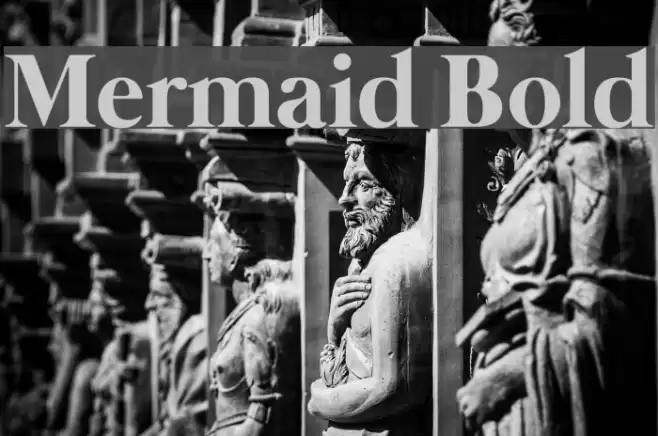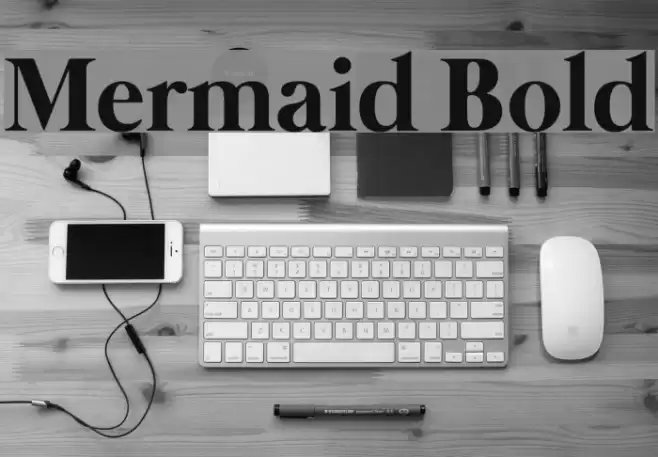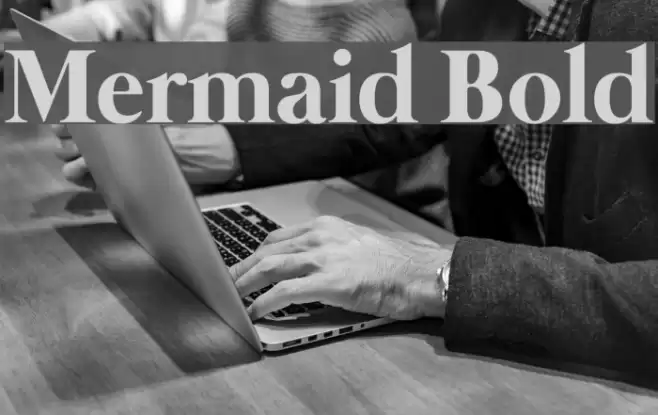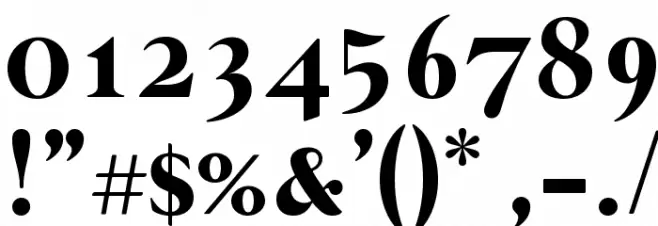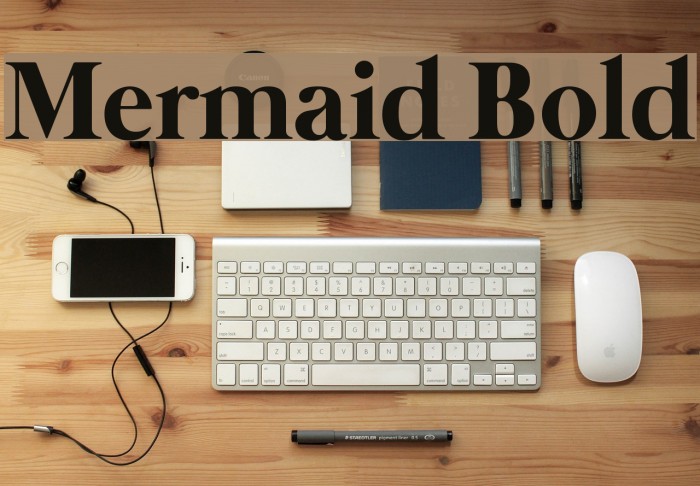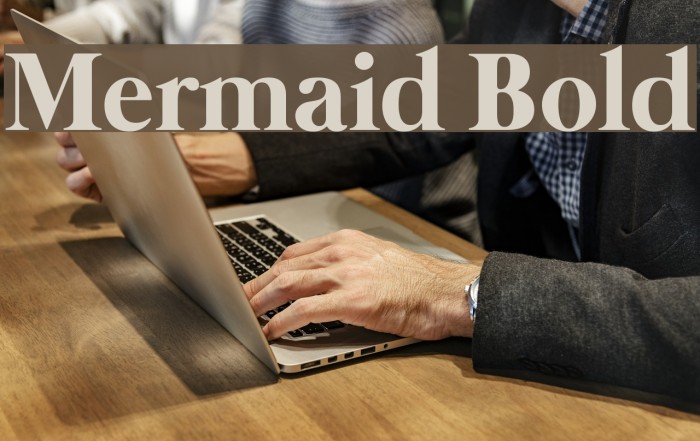
Mermaid Bold Font
Mermaid Bold Description
This font features a bold and elegant serif style, characterized by its strong vertical lines and subtle curves. The serifs are pronounced, giving the typeface a classic and sophisticated appearance. The uppercase letters are slightly taller than average, adding to the font's commanding presence. The lowercase letters maintain a consistent weight, ensuring readability while preserving the font's bold nature. The numerals are well-proportioned, aligning seamlessly with the overall design. Special characters are distinct and maintain the font's elegant style, making it suitable for various applications.
A bold and elegant serif font with strong vertical lines and pronounced serifs from Serif fonts.
- Proposed Projects: Ideal for use in luxury branding, editorial design, book covers, and formal invitations.
- Overall Style: Classic
- Use Case: Headlines, Logos, Editorial design